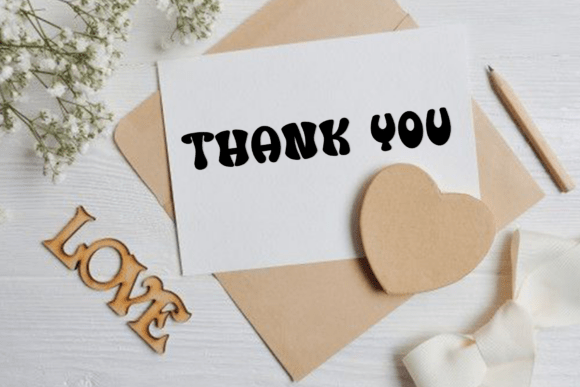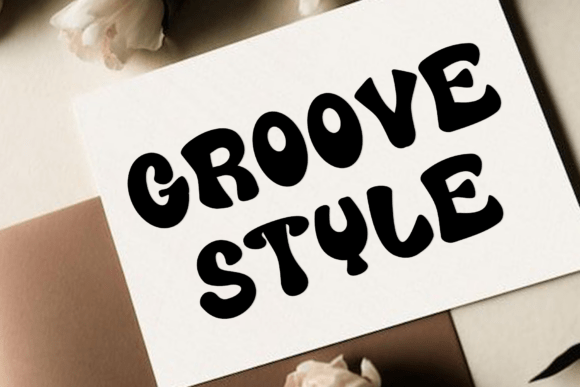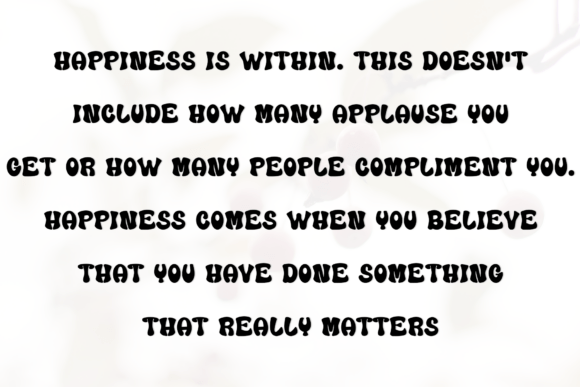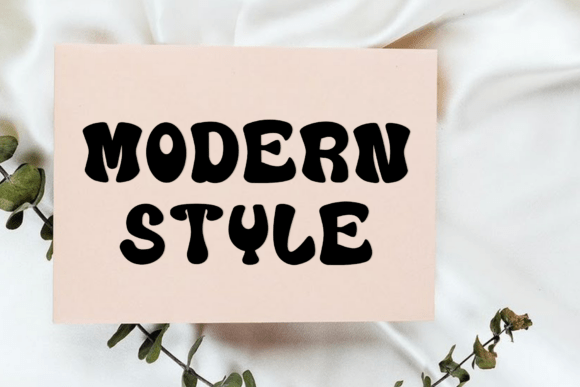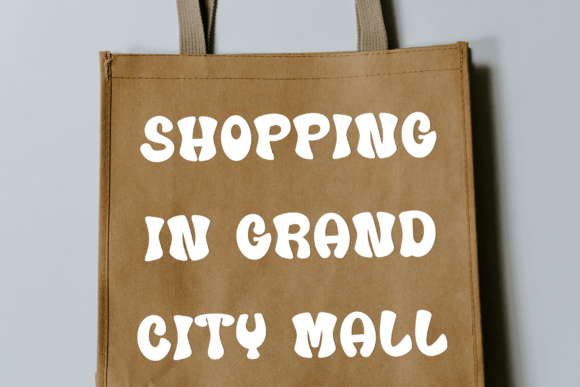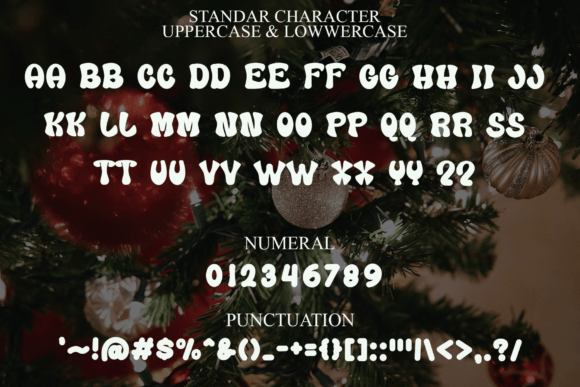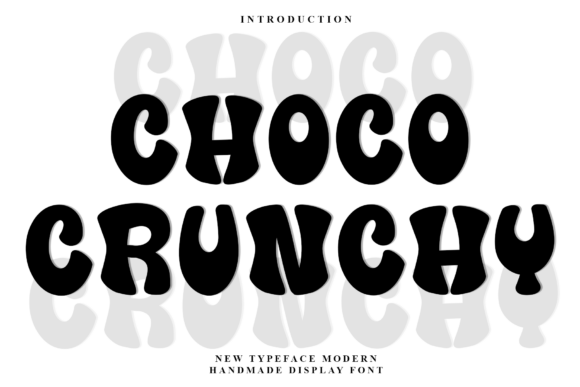
Introducing Choco Crunchy Font: The Ultimate Holiday Typeface
The holiday season is upon us, and what better way to get into the spirit than with a festive and merry typeface? Look no further than Choco Crunchy Font, a decorative and whimsical font that’s perfect for adding a touch of enchantment to your designs. In this article, we’ll dive into the world of Choco Crunchy, exploring its features, benefits, and uses, and show you why it’s a must-have for designers and crafters alike.
What is Choco Crunchy Font?
Choco Crunchy Font is a beautifully crafted typeface that’s designed to capture the magic of the holiday season. With its decorative elements and whimsical flair, it’s the perfect addition to any holiday-themed project. Whether you’re creating greeting cards, gift tags, or festive social media graphics, Choco Crunchy Font is sure to bring a cheerful and nostalgic ambiance to your words.
Key Features of Choco Crunchy Font
- Decorative Elements: Choco Crunchy Font features a range of decorative elements, including intricate swirls, holly leaves, and snowflakes, that add a touch of festive flair to your designs.
- Whimsical Flair: This font has a playful, whimsical feel that’s perfect for capturing the spirit of the holiday season.
- PUA Encoded: Choco Crunchy Font is PUA encoded, which means you can access all of the amazing glyphs and ligatures with ease.
- Multilingual Support: This font supports multiple languages, making it perfect for designers and crafters around the world.
Benefits of Using Choco Crunchy Font
So why choose Choco Crunchy Font for your holiday designs? Here are just a few benefits of using this amazing typeface:
- Adds a Touch of Enchantment: Choco Crunchy Font adds a touch of magic to your designs, making them perfect for holiday-themed projects.
- Perfect for Crafters: This font is ideal for crafters who want to add a personal touch to their holiday gifts and cards.
- Easy to Use: With its PUA encoding, Choco Crunchy Font is easy to use, even for designers who are new to working with decorative fonts.
- Versatile: This font can be used for a wide range of projects, from greeting cards and gift tags to social media graphics and holiday-themed websites.
Uses for Choco Crunchy Font
So what can you create with Choco Crunchy Font? Here are just a few ideas to get you started:
- Holiday Greeting Cards: Create beautiful, one-of-a-kind greeting cards for your loved ones.
- Gift Tags: Add a personal touch to your holiday gifts with custom gift tags featuring Choco Crunchy Font.
- Social Media Graphics: Create festive social media graphics to get your followers in the holiday spirit.
- Holiday-Themed Websites: Use Choco Crunchy Font to add a touch of holiday cheer to your website or blog.